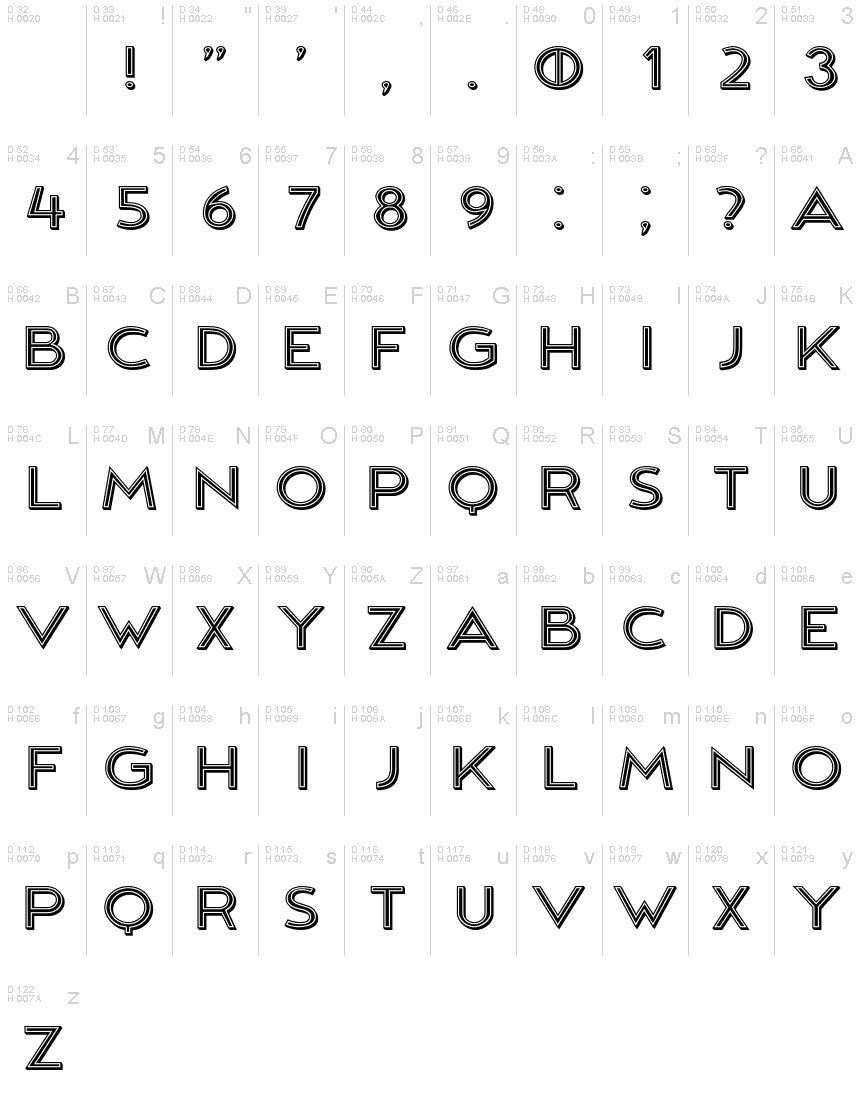
Vladimir Sans Filled
Vladimir Sans Filled is an embossed sans serif font from the Vladimir Sans family, designed by Vladimir Nikolic. It is a light, wide font that is perfect for giving your projects an eye-catching look. The unique style of Vladimir Sans Filled will make your designs stand out and can be used for logos, branding, posters and other creative projects. Give your work an extra touch of personality with this distinctive font!